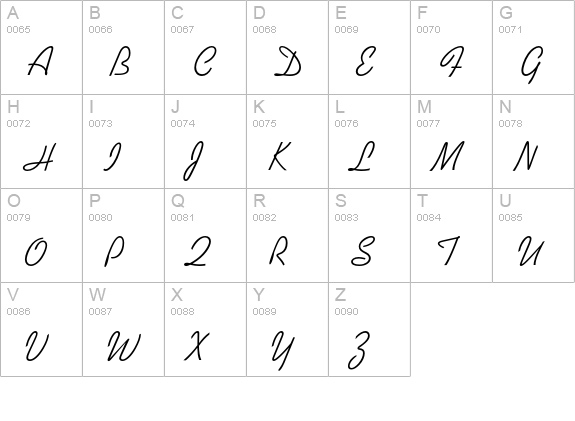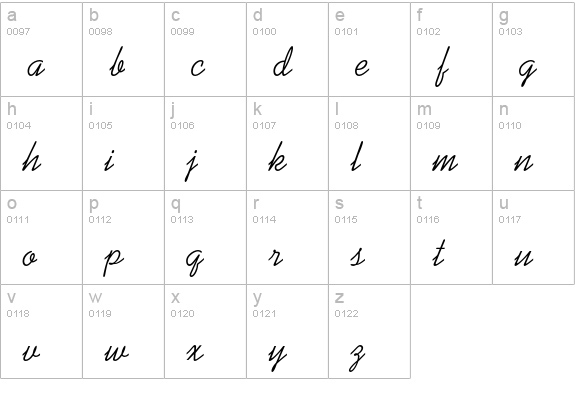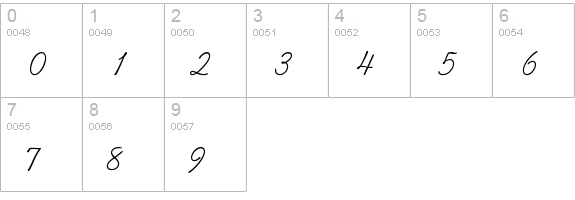
Kaufmann Font Details
Kaufmann font is a stunning typeface that combines elegance and versatility. With its graceful curves and delicate strokes, this font exudes a sense of sophistication and refinement. Whether used for a logo, headline, or body text, Kaufmann font adds a touch of class to any design project. What makes Kaufmann font even more appealing is that it is free to download. Yes, you read that right – this exquisite font can be yours without spending a single penny. Thanks to FontsMarket.com, you can easily access and download Kaufmann font at the click of a button. Once you have this font in your collection, the creative possibilities are endless. Its clean and legible design makes it perfect for various applications, including branding, advertising, invitations, and much more. Whether you are a professional designer or a DIY enthusiast, Kaufmann font will undoubtedly elevate your projects to new heights. The carefully crafted letterforms of Kaufmann font showcase a harmonious blend of modern and classic elements. Each character is meticulously designed to capture attention and create a lasting impression. Whether used in large titles or small body text, this font maintains its readability and visual appeal. In addition to its aesthetic appeal, Kaufmann font is also highly functional. Its extensive character set includes a range of punctuation marks, numerals, and special characters, ensuring that you have all the tools necessary to create visually stunning designs. So why wait? Don't miss out on this incredible opportunity to enhance your design projects with the elegant and versatile Kaufmann font. Visit FontsMarket.com today and download this font for free. Unleash your creativity and let Kaufmann font make a statement in your next design endeavor.